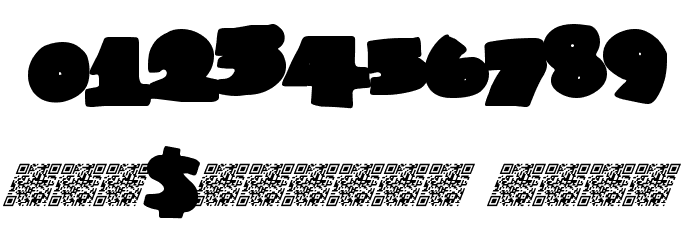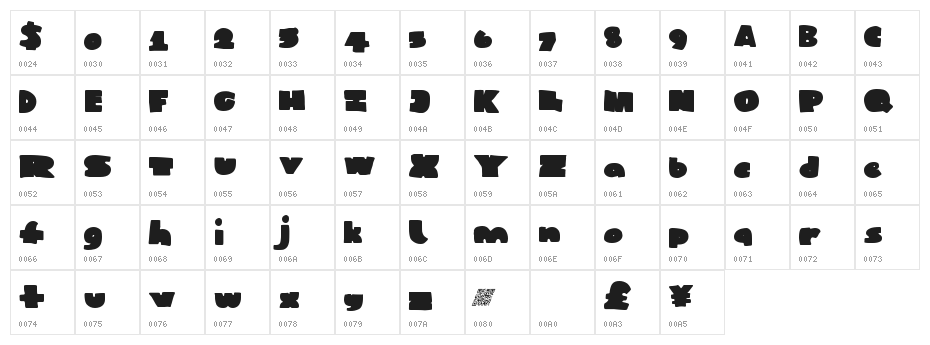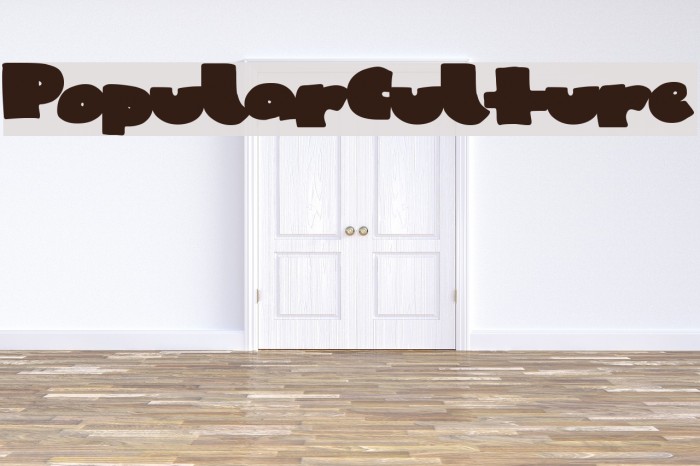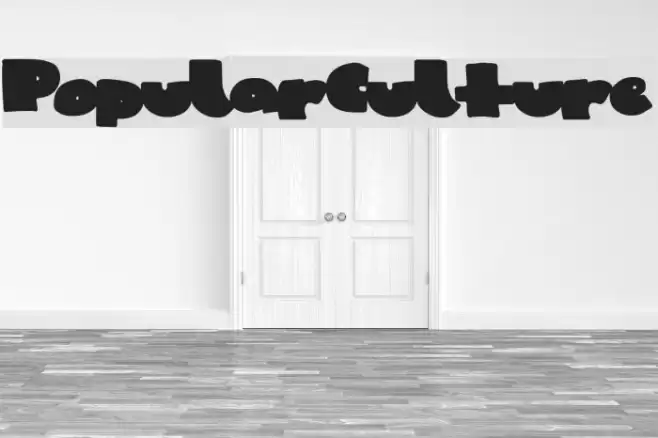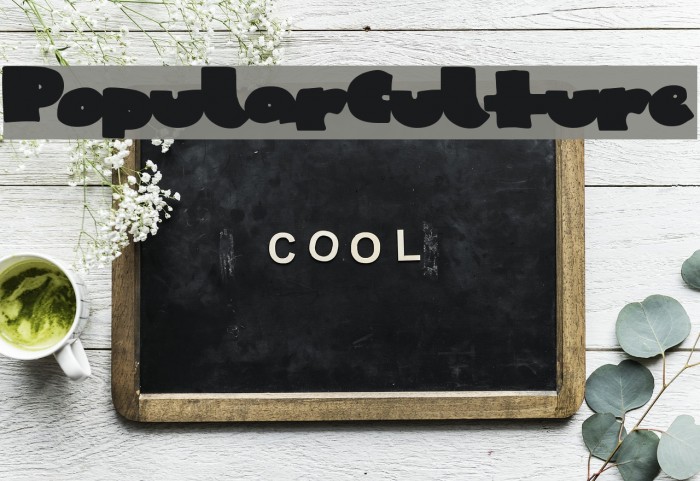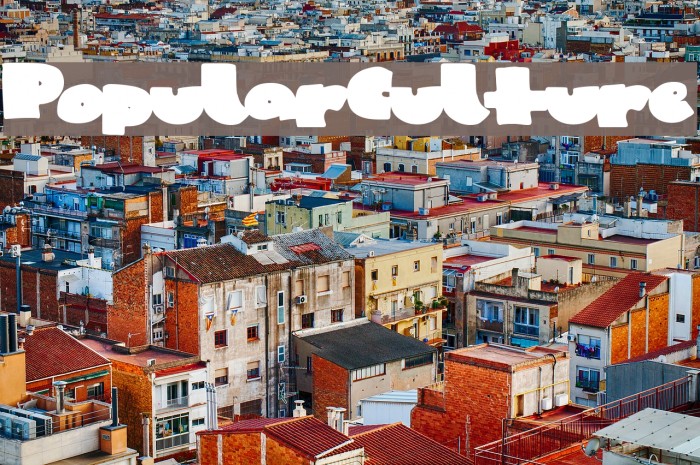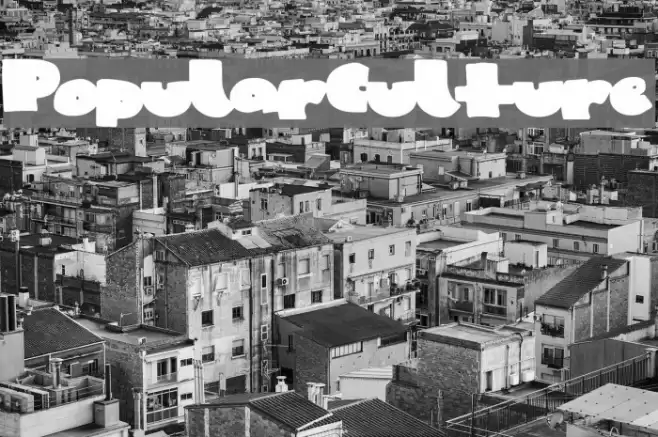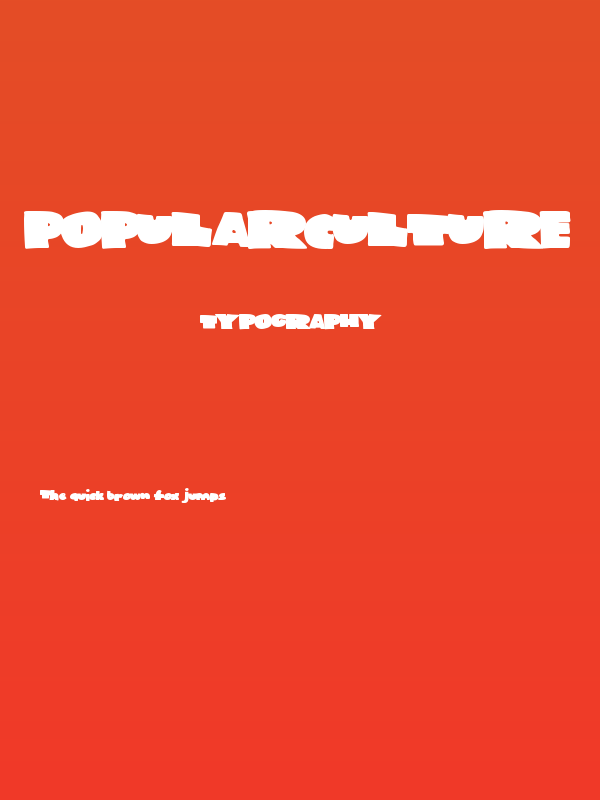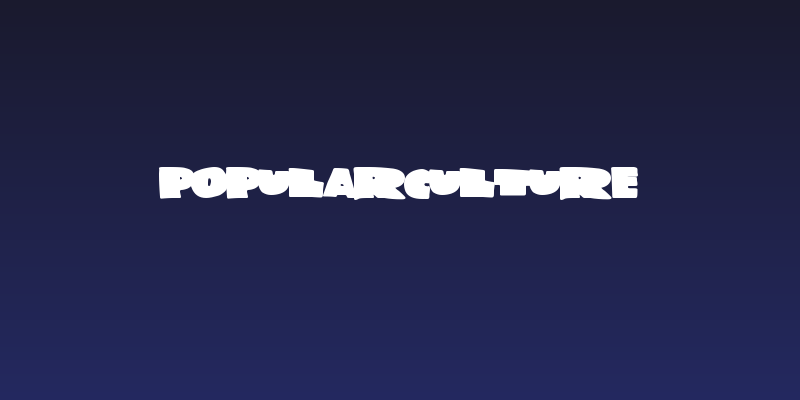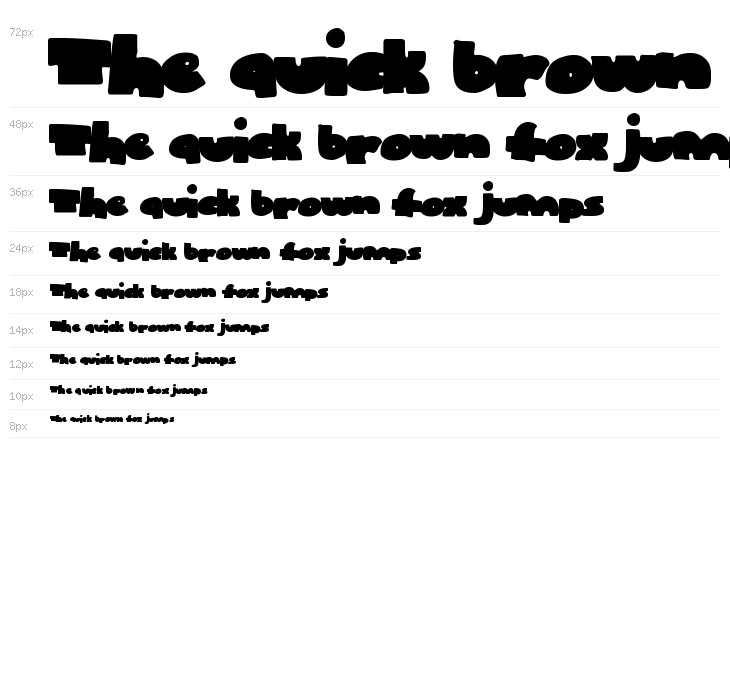
PopularCulture Font
PopularCulture Description
This font features a bold and playful style with exaggerated, rounded shapes that create a sense of fun and whimsy. The characters are heavily weighted, with thick strokes that give them a strong presence on the page. The overall design is reminiscent of retro or pop culture aesthetics, making it ideal for projects that require a touch of nostalgia or a vibrant, eye-catching look. The uppercase and lowercase letters maintain a consistent style, while the numbers and special characters are equally bold and dynamic.
Overall StyleRetro, Playful
Proposed ProjectsIdeal for posters, album covers, children's books, and any design needing a playful, retro touch.